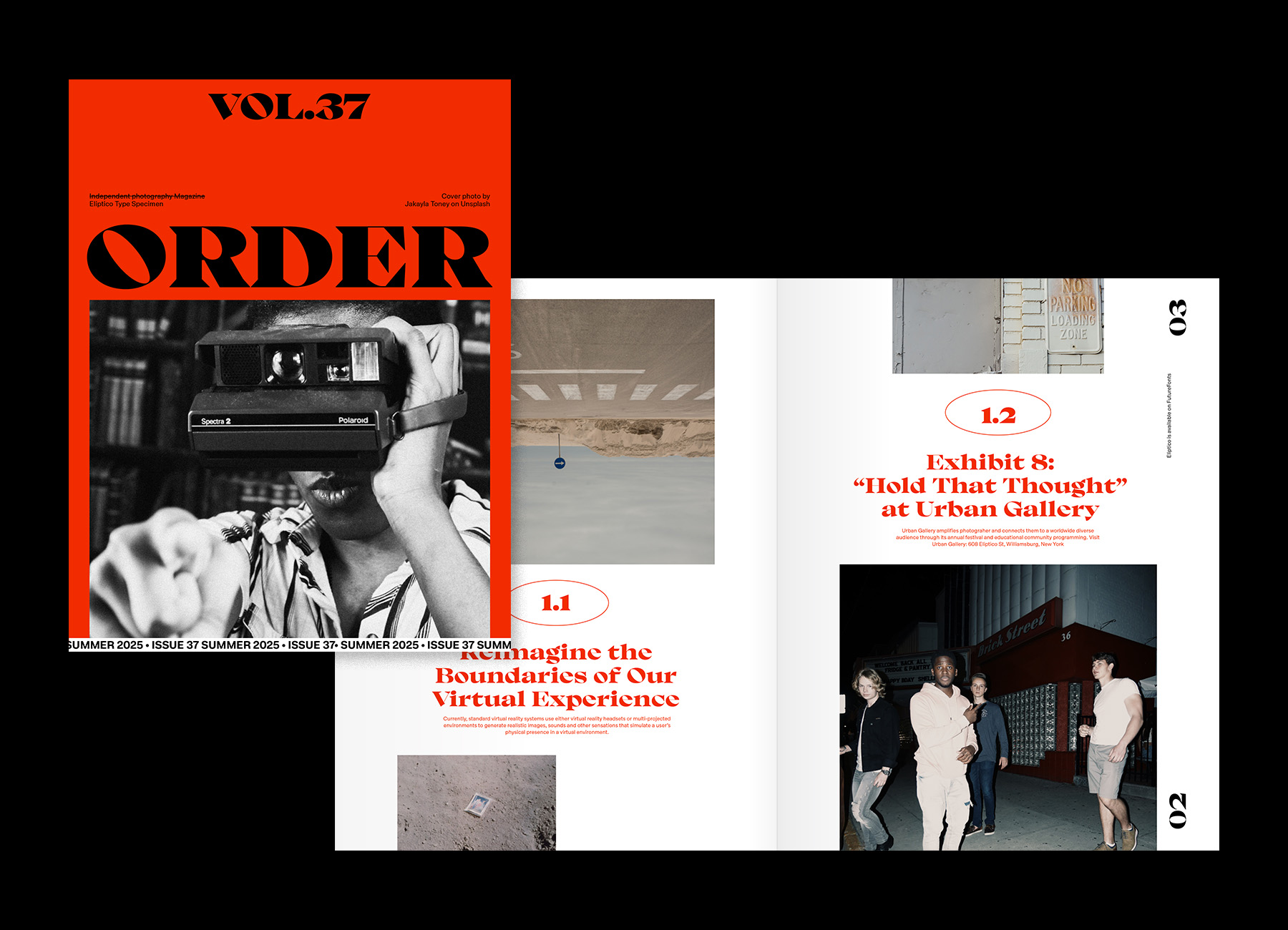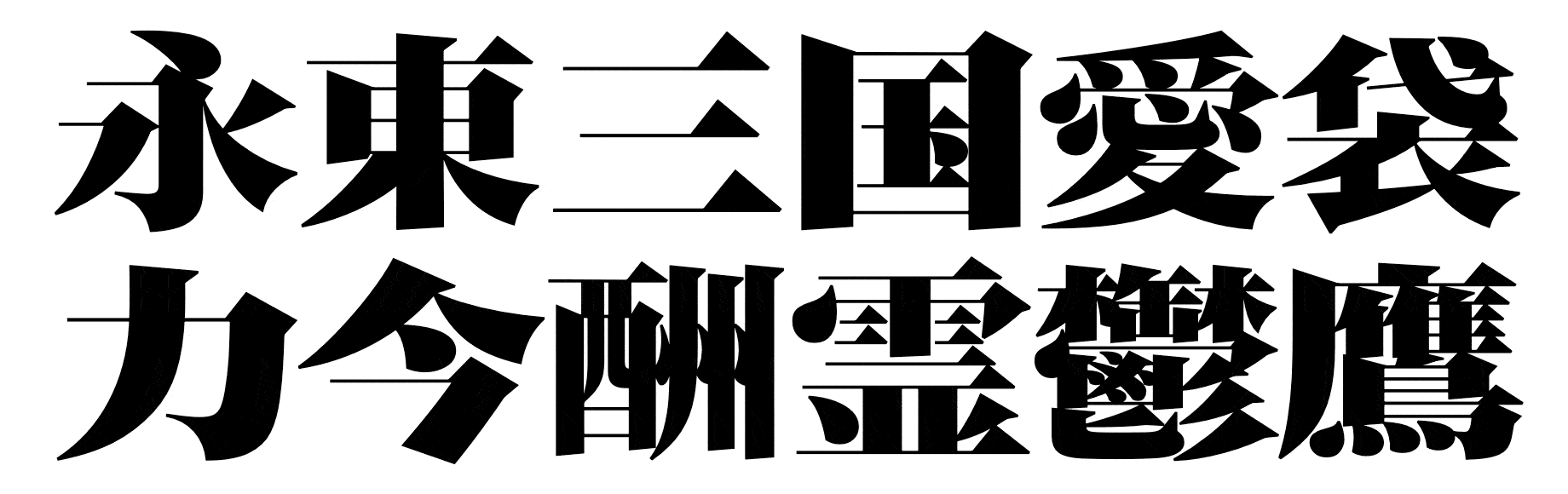
Eliptico is a contemporary high-contrast serif typeface with diagonal stress and angled oval-shaped counters. The ovals are also integrated in letterforms like B, D, G, P, R and etc, which create a playful pattern throughout the text.
Designed with sharp cuts, dramatic thick-and-thin contrast, and distinctive triangular serifs, Eliptico delivers a refined yet expressive tone. The overall structure blends calligraphic energy with modern geometry, resulting in a typeface that is both stylish and memorable.
Ideal for editorial design, branding, and large-scale typographic compositions, Eliptico is particularly effective in headlines, titles, and supergraphics where visual personality matters.
- DesignerTien-Min Liao
- ManufacturerTypeji